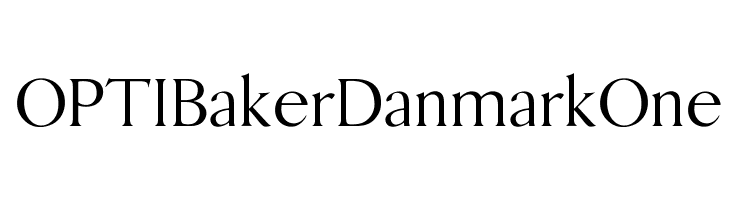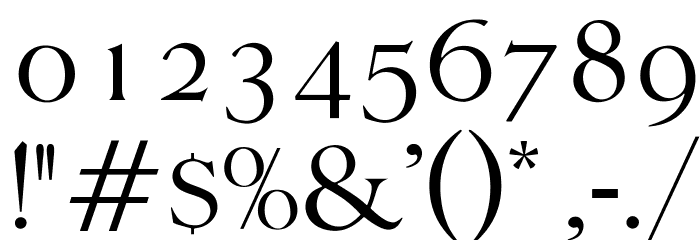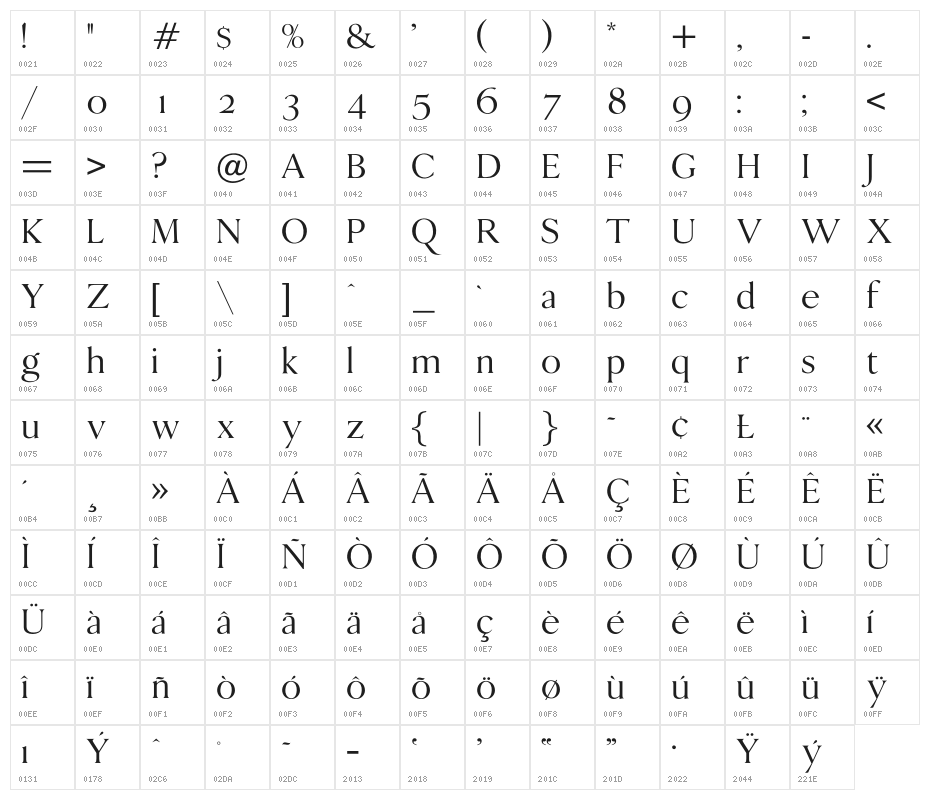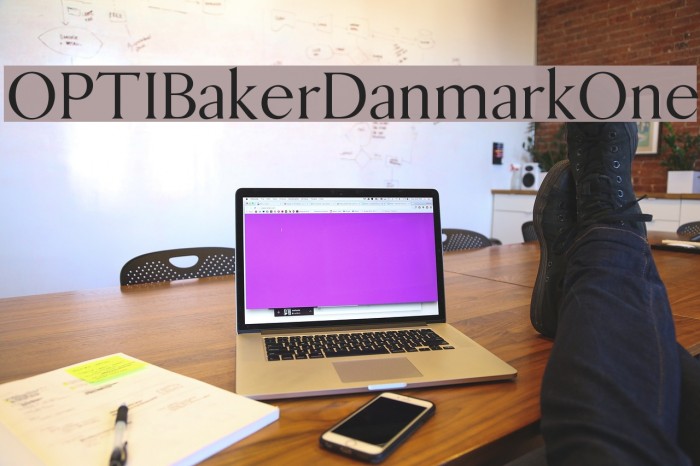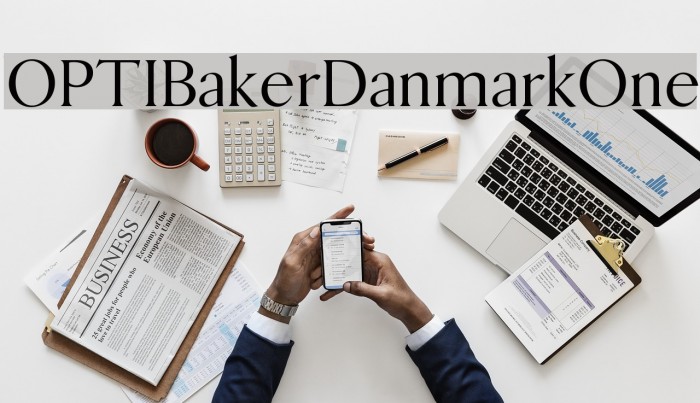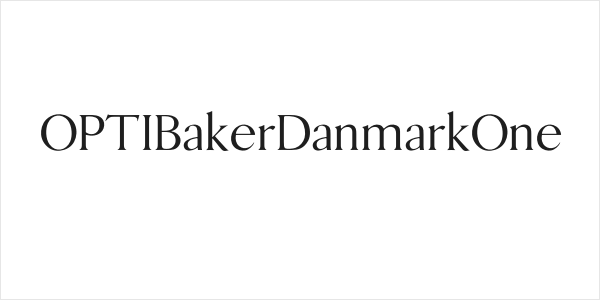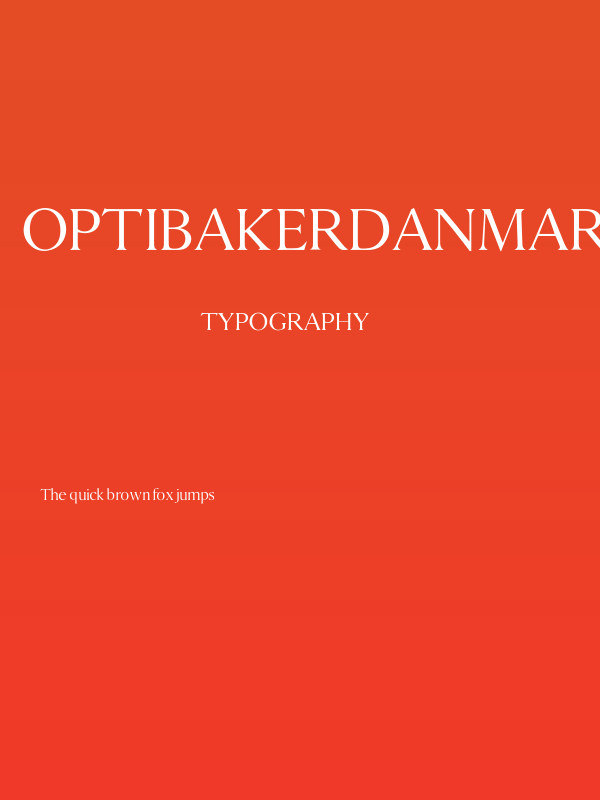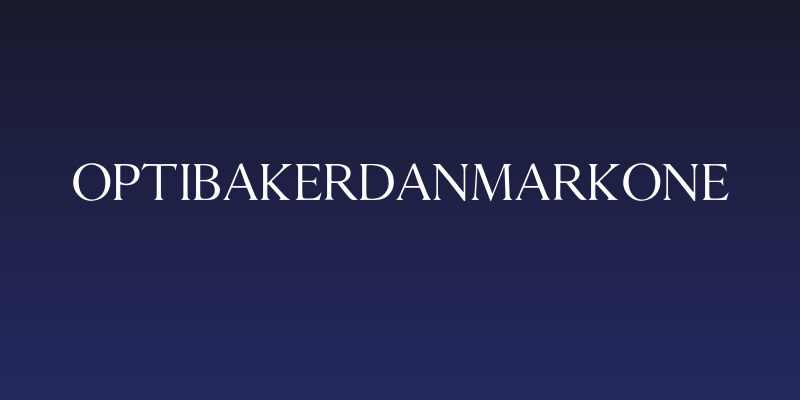
OPTIBakerDanmarkOne Font
OPTIBakerDanmarkOne Description
This font features a classic serif style with elegant and refined strokes. The uppercase letters are tall and commanding, while the lowercase letters maintain a balanced and harmonious appearance. The numerals are clear and distinct, making them easily readable. Special characters are designed with a consistent style, ensuring they blend seamlessly with the rest of the typeface. The overall design exudes a sense of sophistication and timelessness, making it suitable for a variety of applications.
| Proposed Projects | Ideal for editorial design, book covers, formal invitations, and branding projects that require a touch of elegance. |